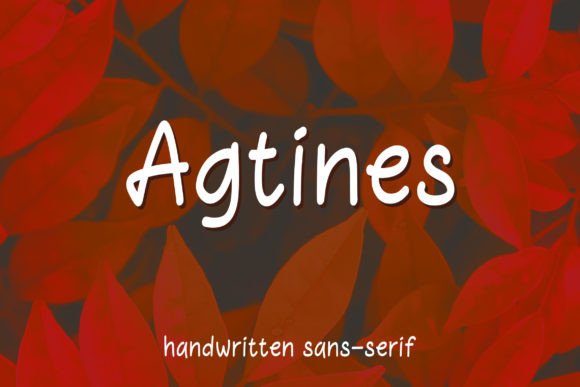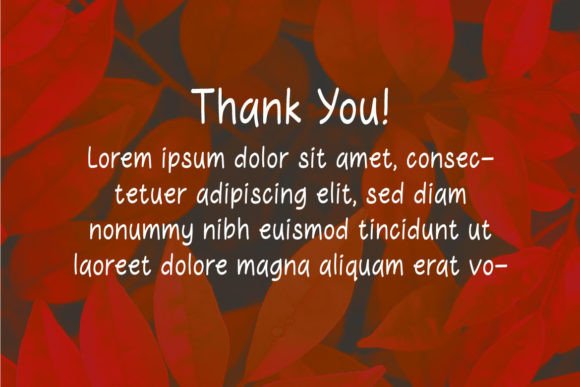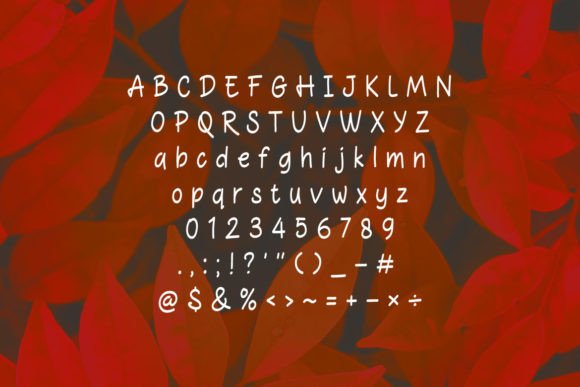
Agtines Font
About Agtines Font
Agtines is a unique handwritten font with a modern look.Agtines can be used in any work such as book titles, book content, wedding cards, wedding invitations, music covers, children's books, posters, advertisements, social media content, logos, and many more.